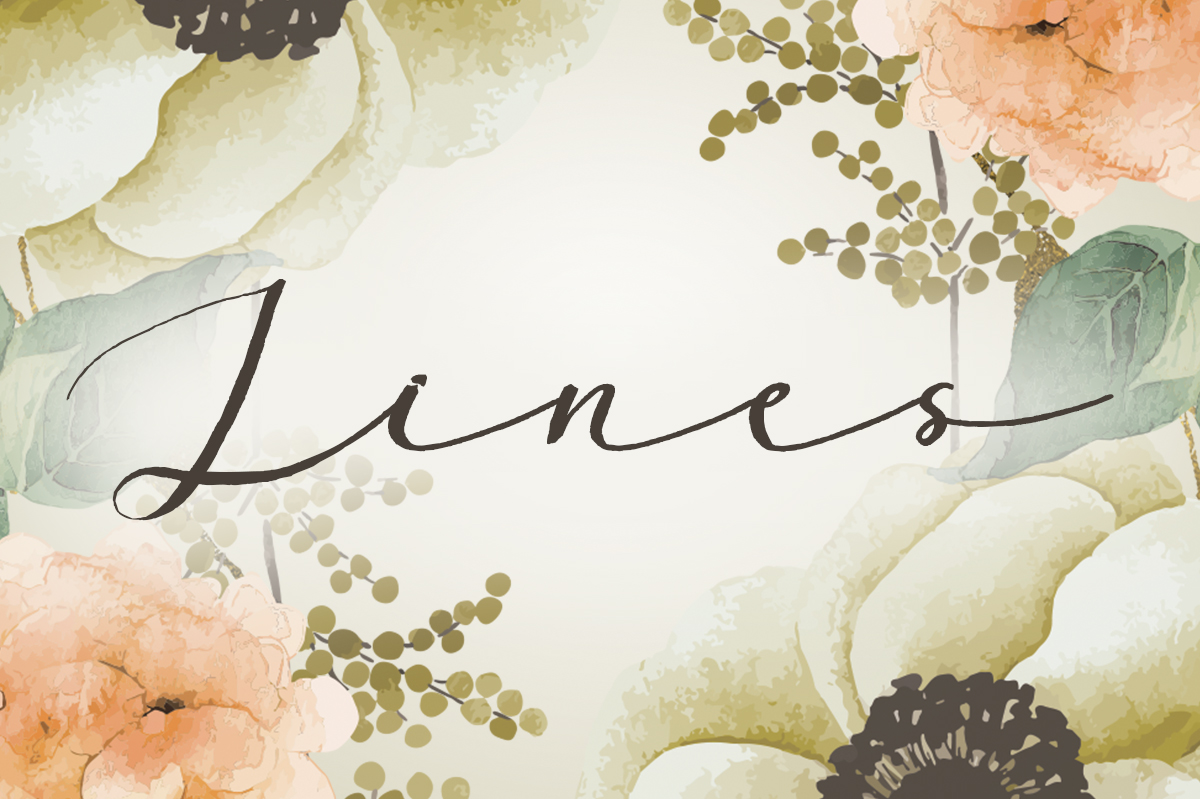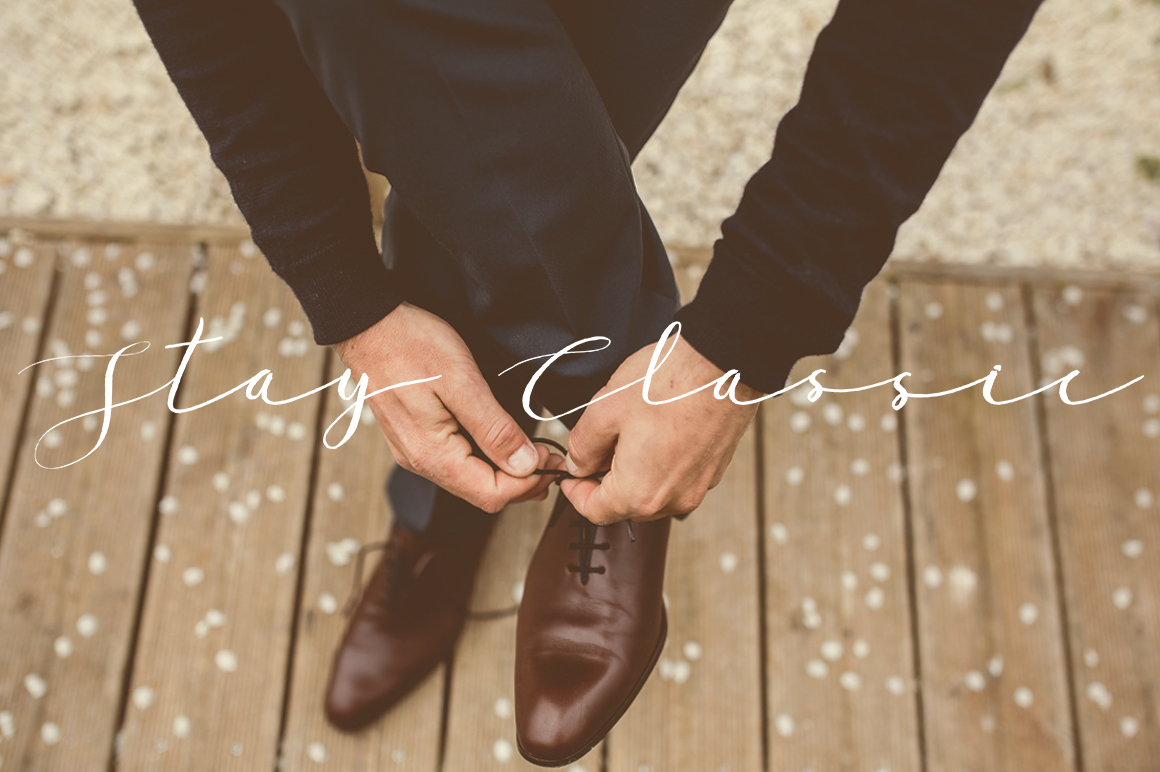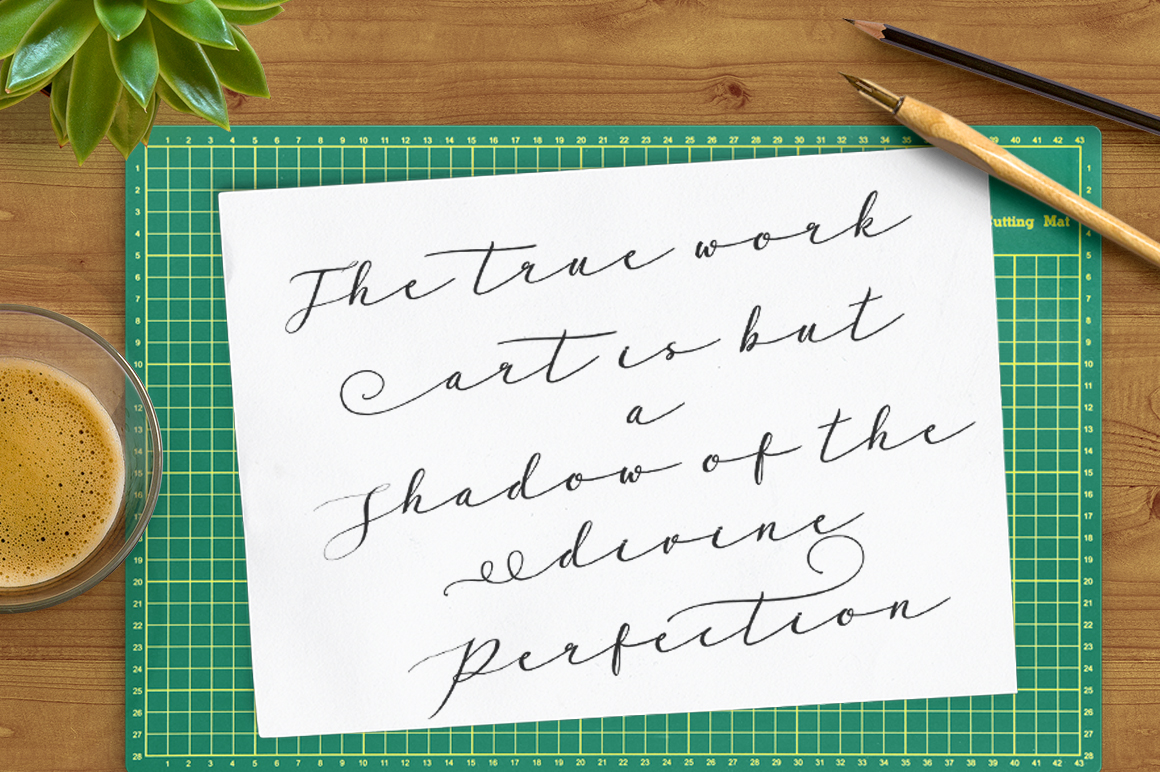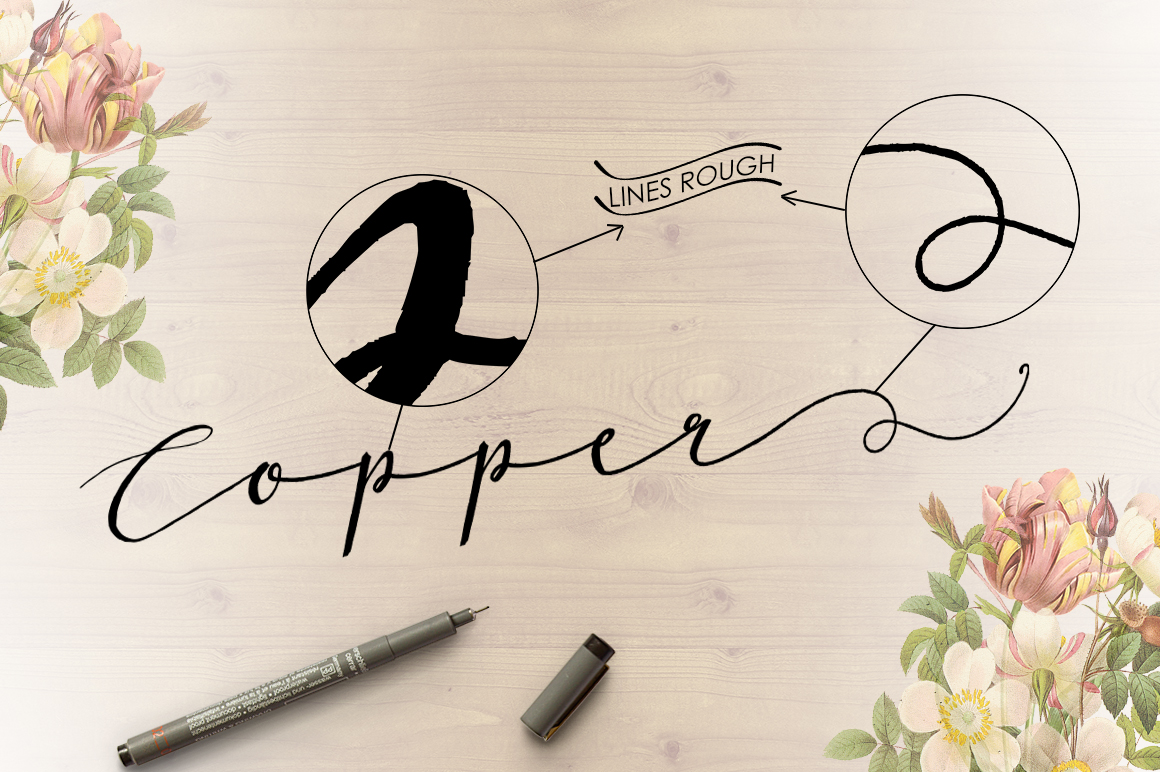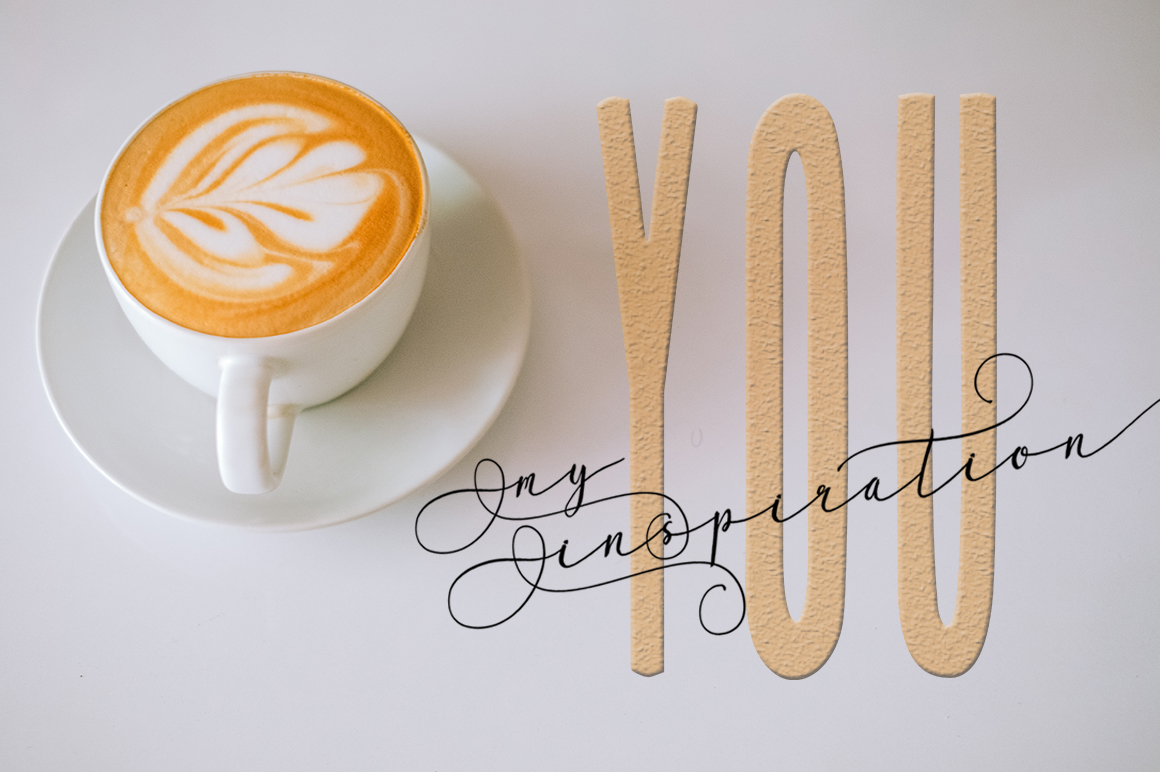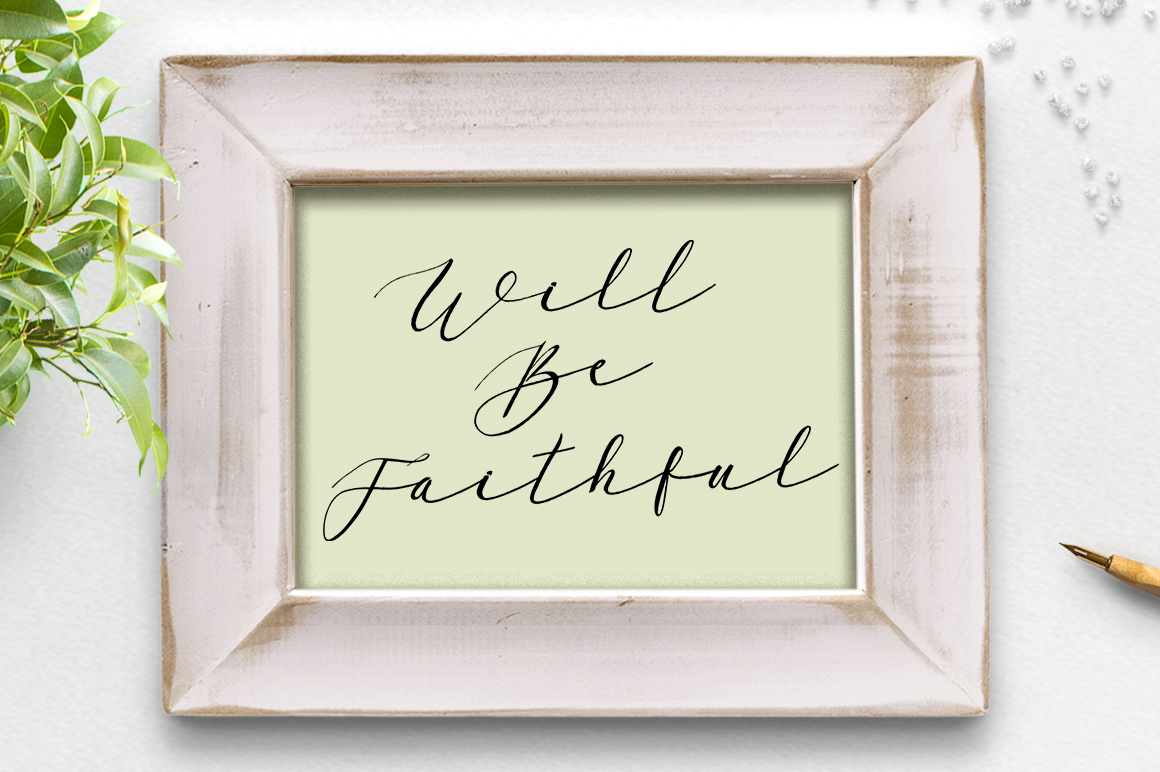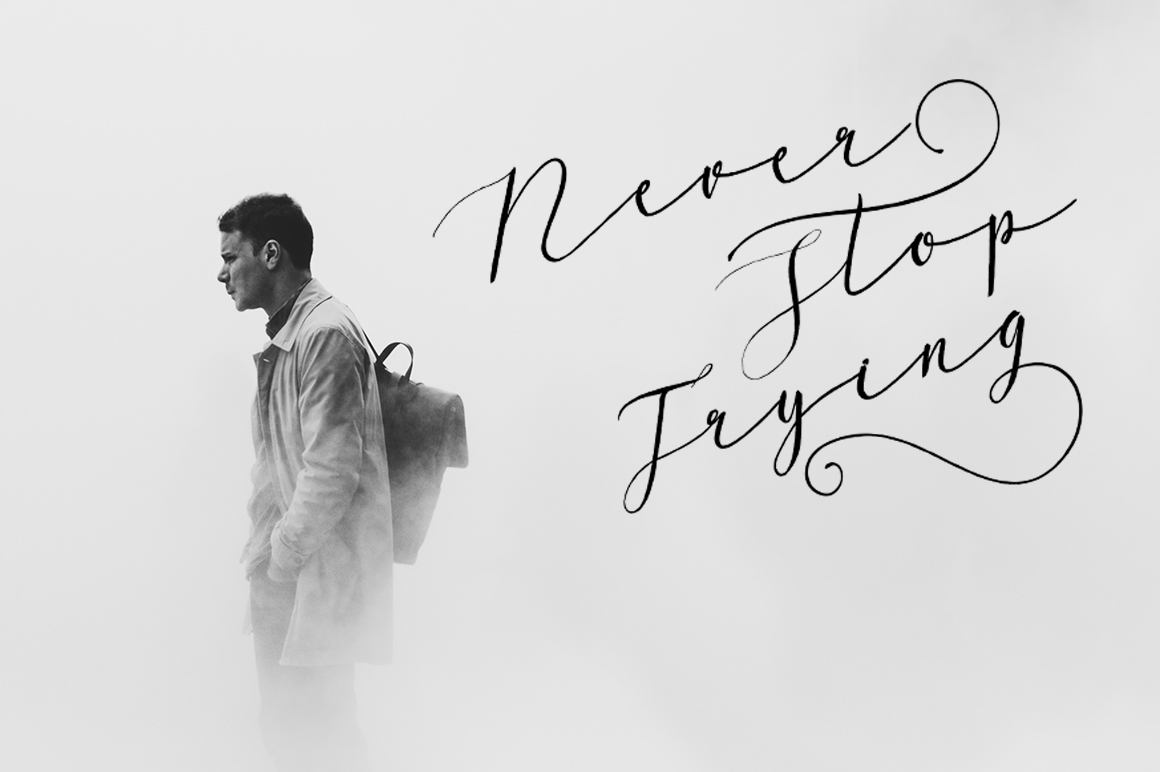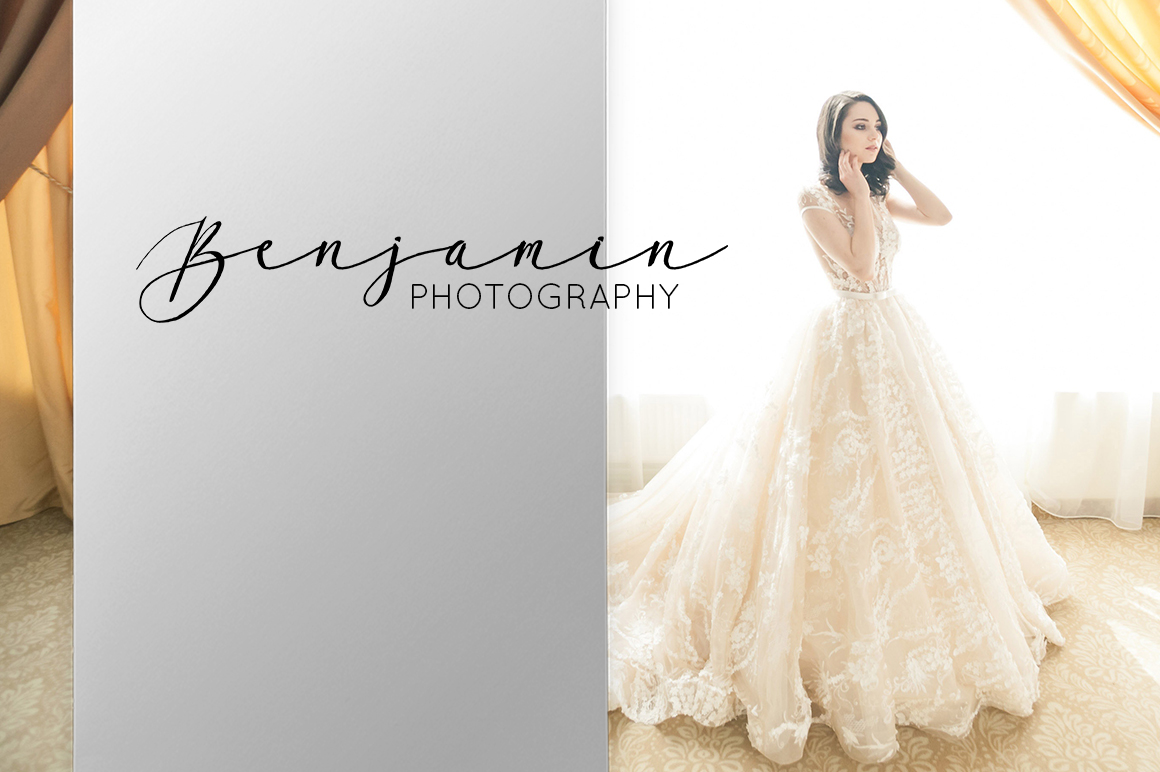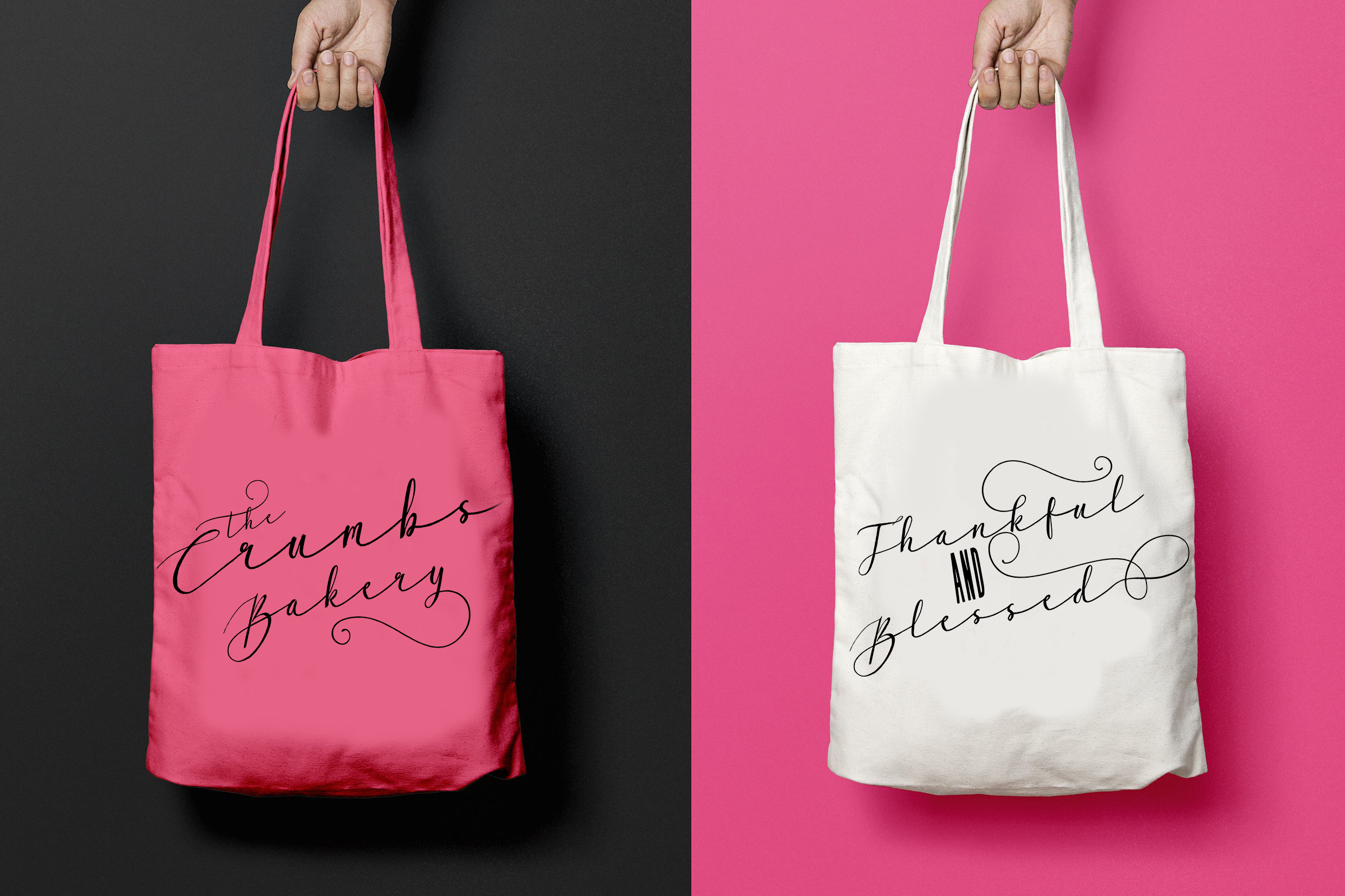
Lines Script Font
About Lines Script Font
Lines Script is a stunning, fancy handwritten font and includes a matching sans serif font.
This font pair is great for creating several types of projects, from advertising to wedding invites.